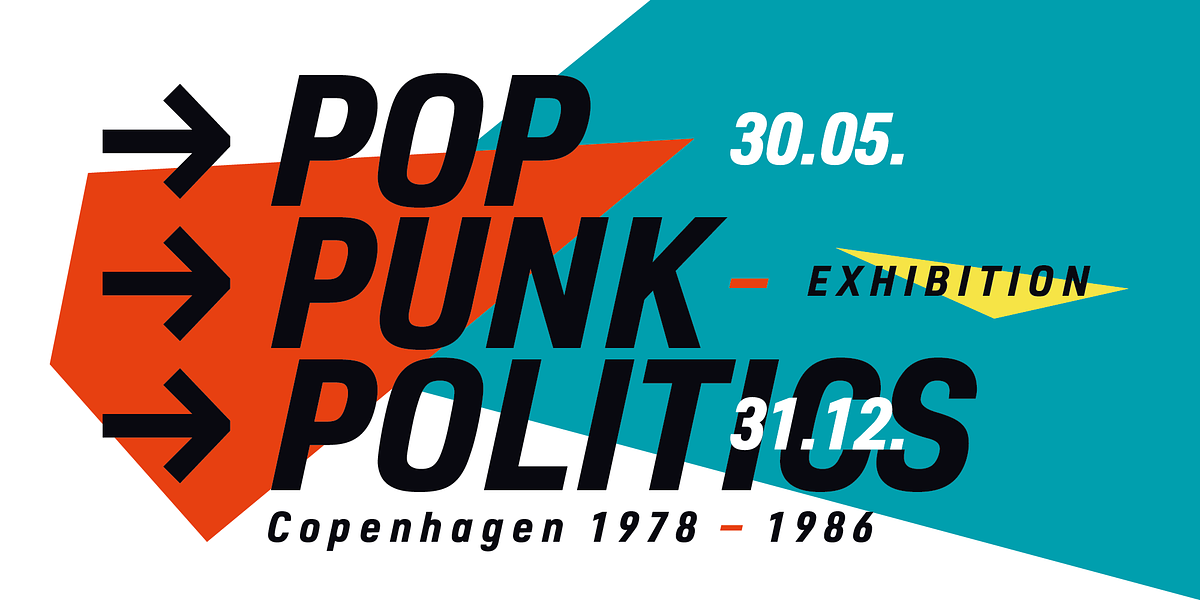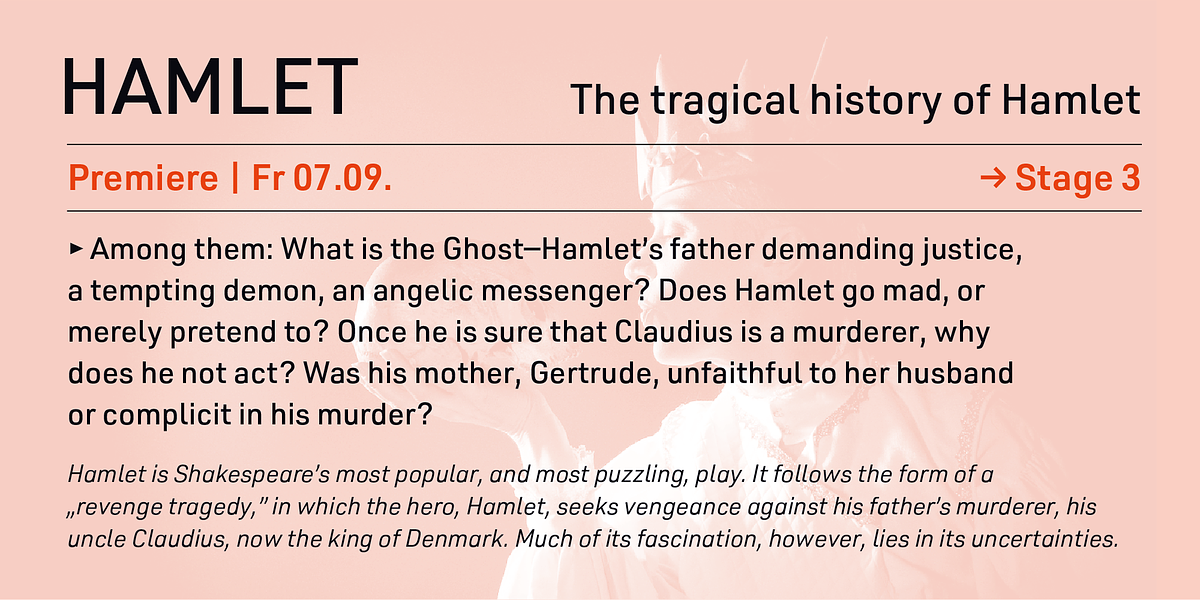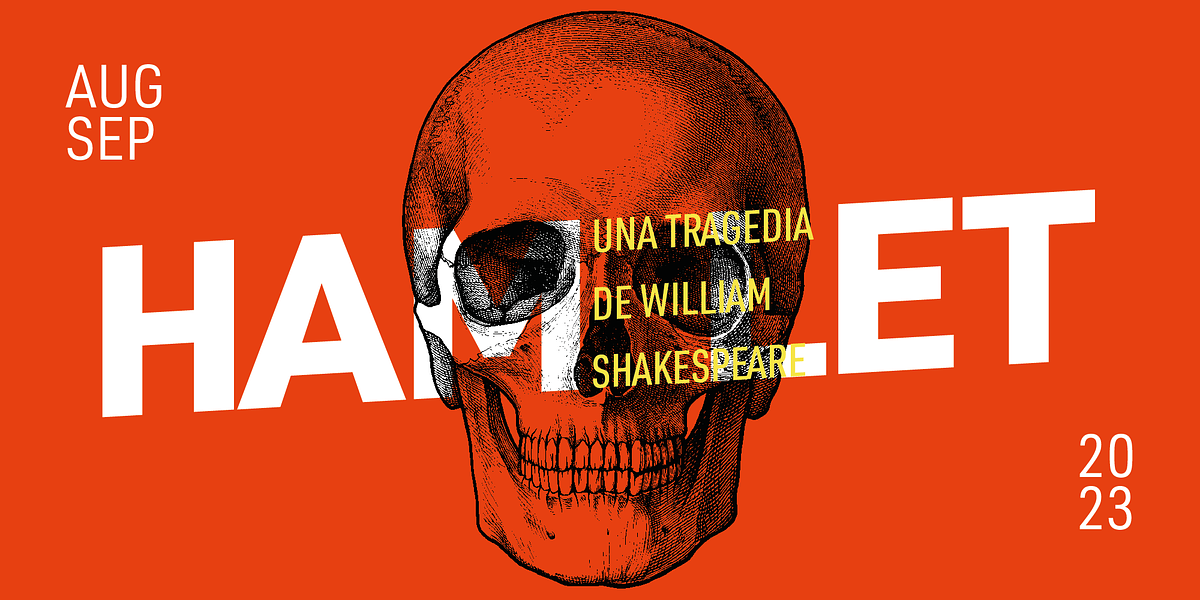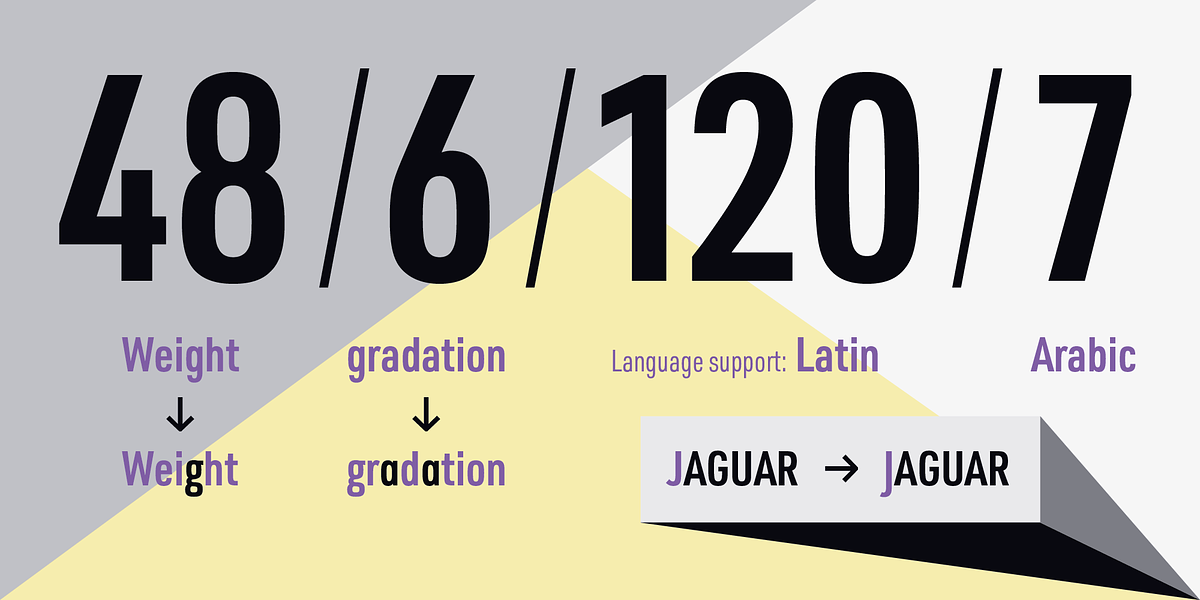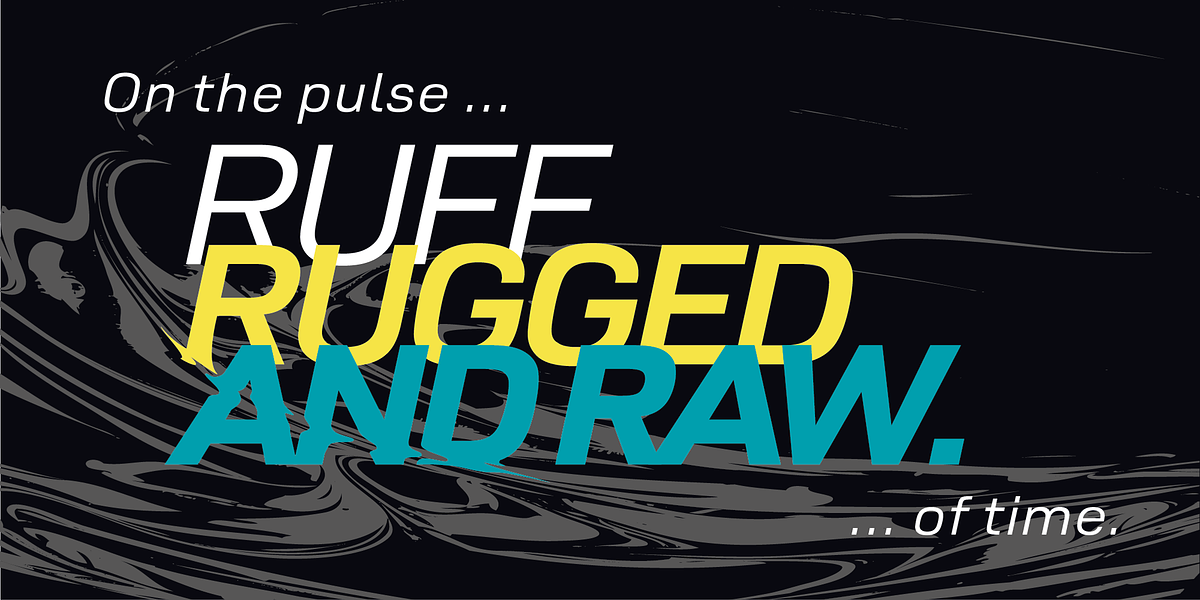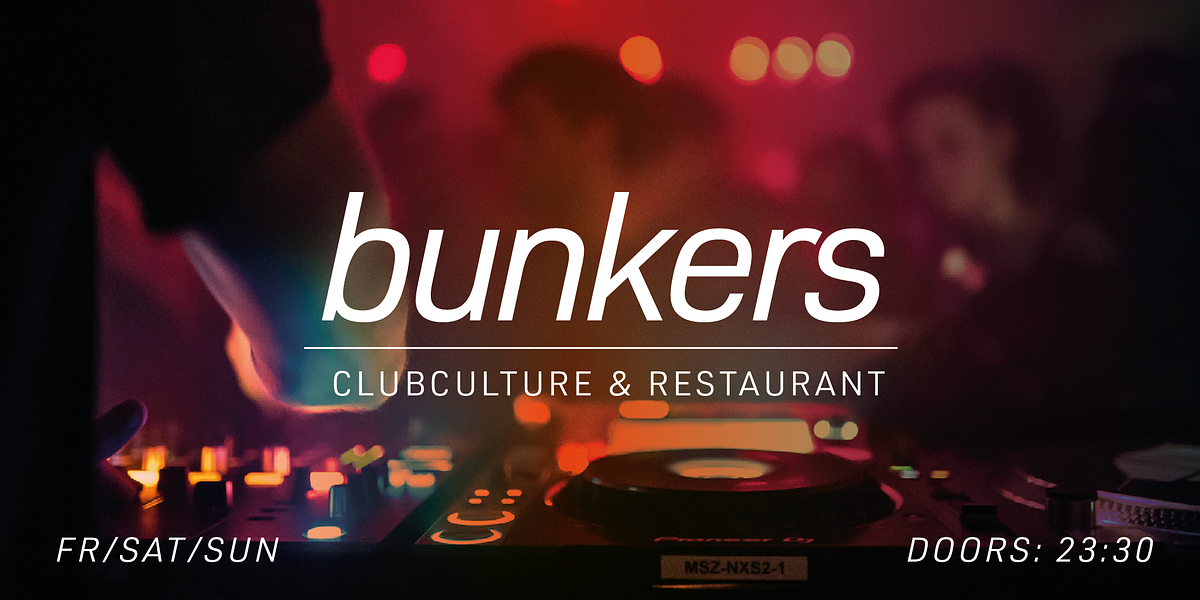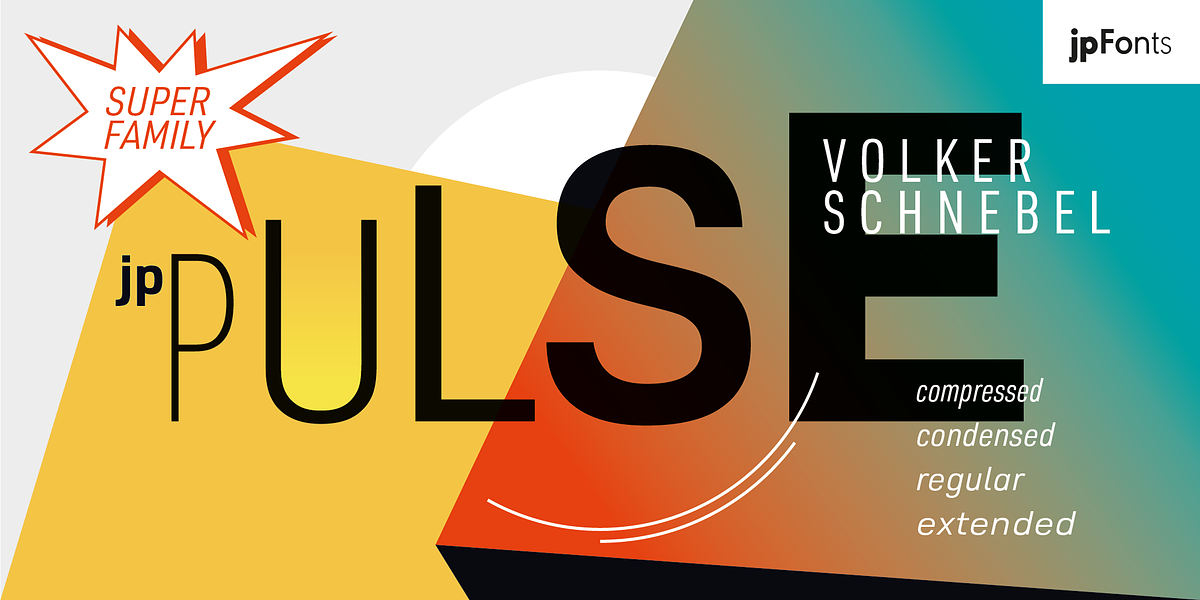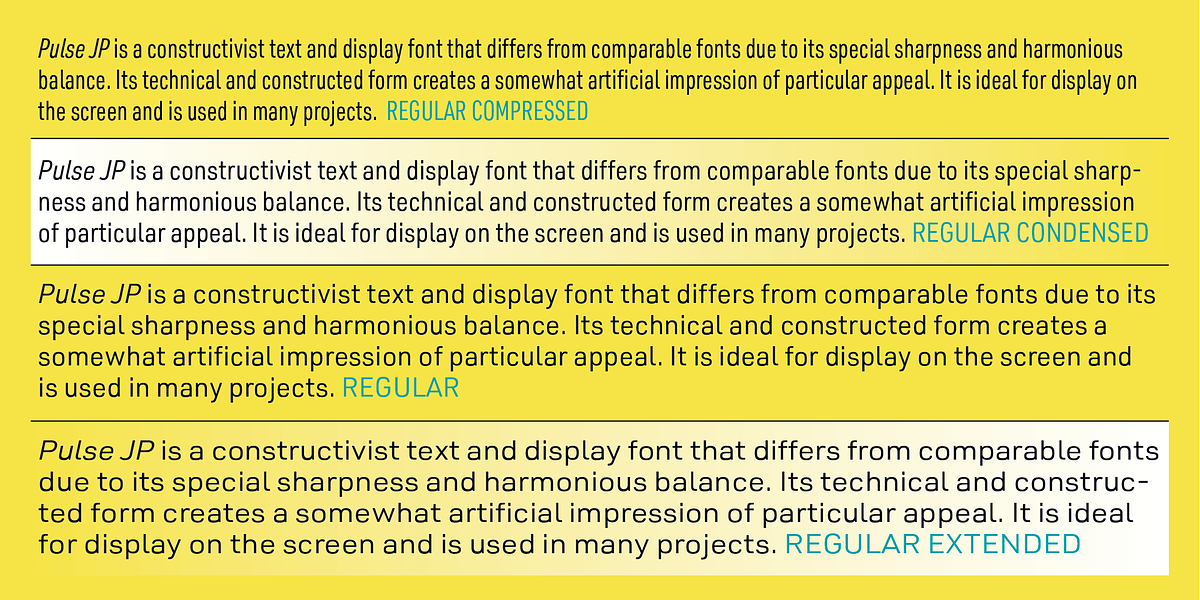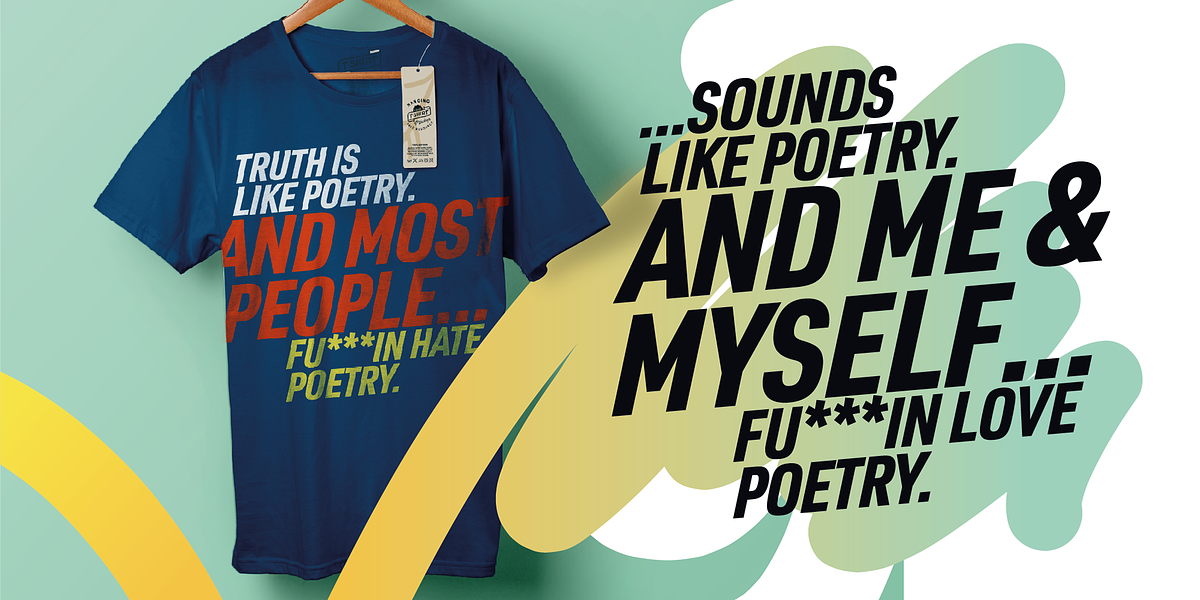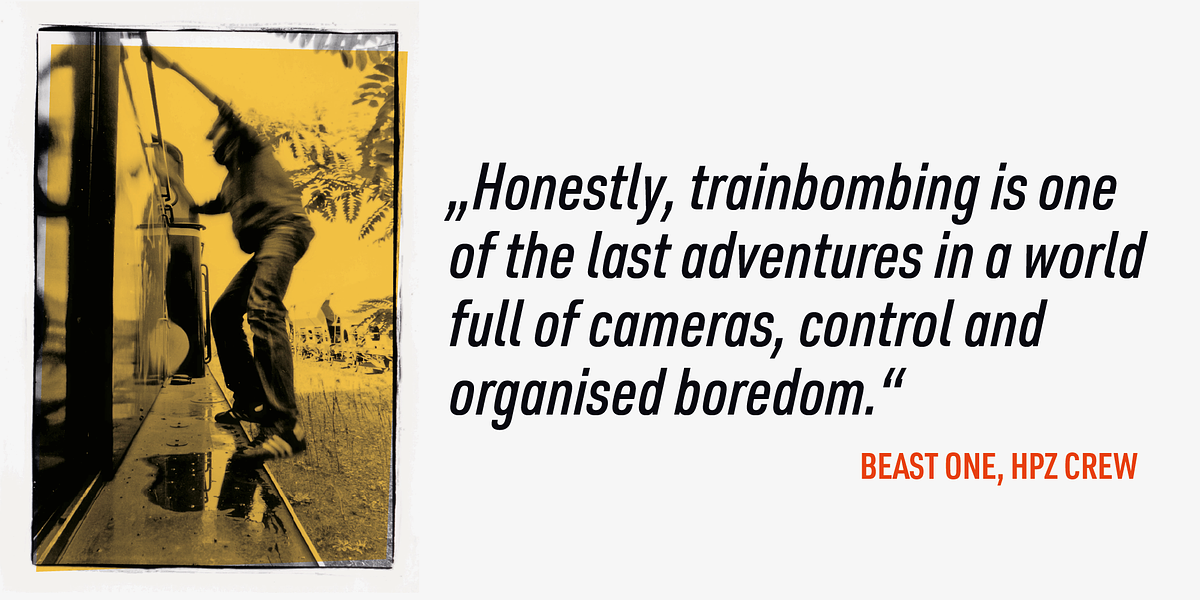
Pulse JP
Pulse JP is a modern neo-grotesque sans serif font known for its sharp, precise design. It offers a wide range of weights and widths, making it suitable for both display and body text applications. The extensive character set supports 120 Latin languages.